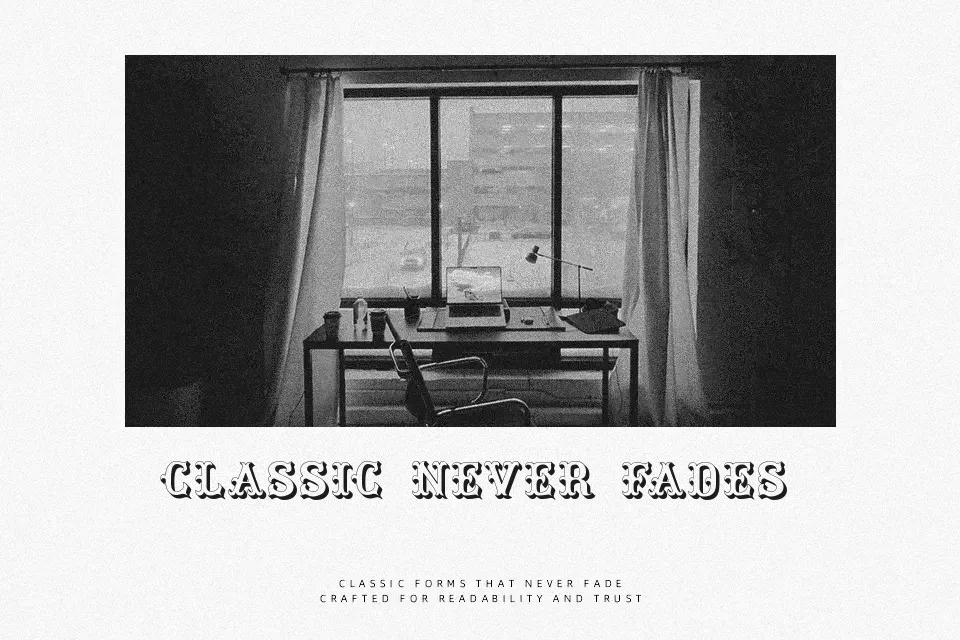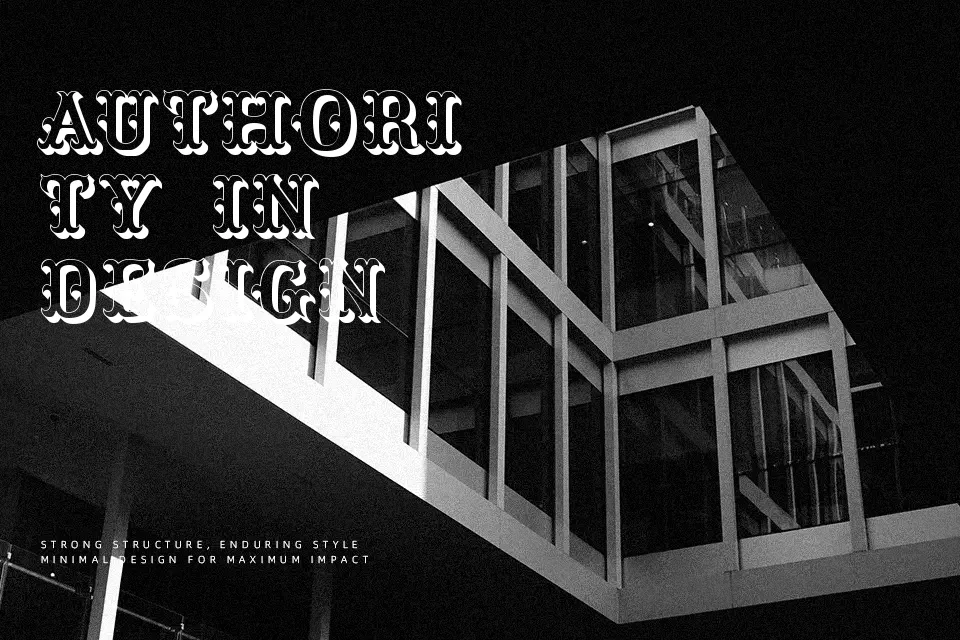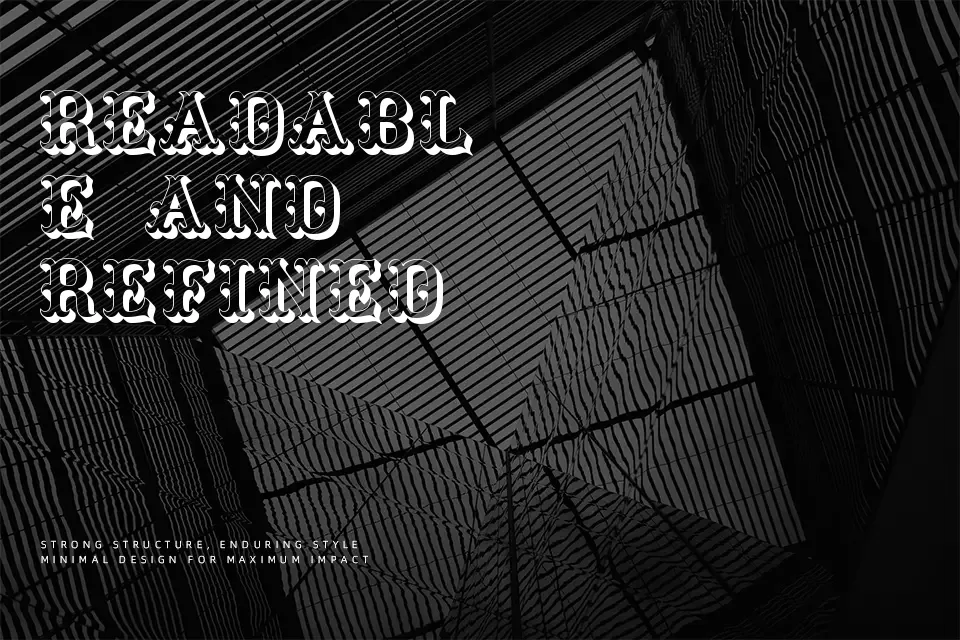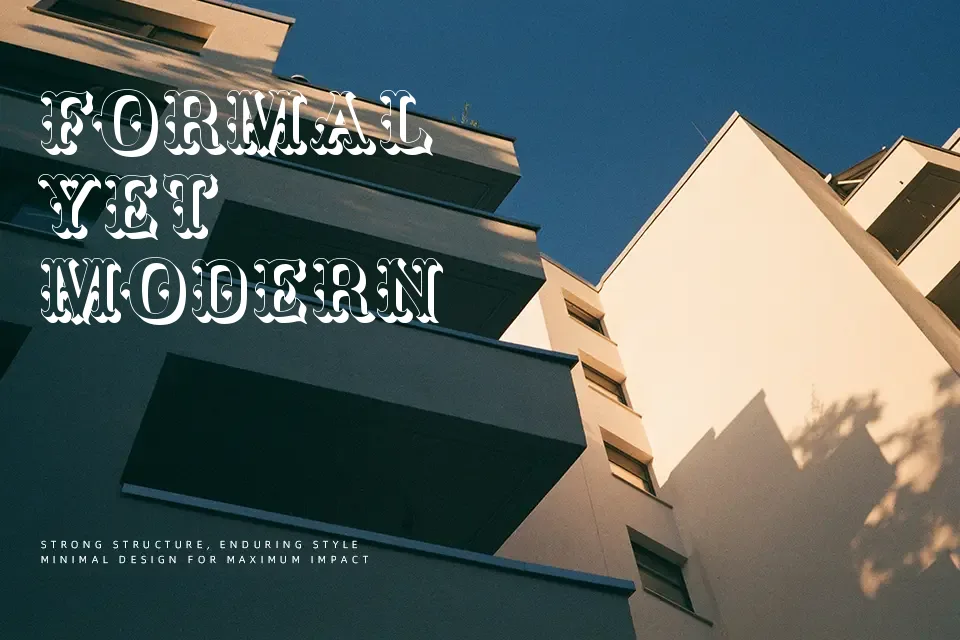
Ragtime Font
A short product label or poster headline benefits from the structured, vintage appeal of Ragtime Font. The typeface features prominent serifs and decorative letterforms that draw clear inspiration from nineteenth-century aesthetics. Its robust stroke weight ensures high visibility at larger sizes, while the balanced character width creates a solid, unified block of text in display settings. The stylized spacing helps maintain visual rhythm in short bursts of text but becomes less effective at smaller sizes. Because of its high decorative complexity, this design reduces continuous reading comfort, making it unsuitable for long paragraphs.
Best For: vintage product packaging,festival posters,coffee shop menu headers
Not Ideal For: long paragraph text,small interface labels,dense editorial layouts
Perfect for branding, headline, and music, with a classic and decorative style.